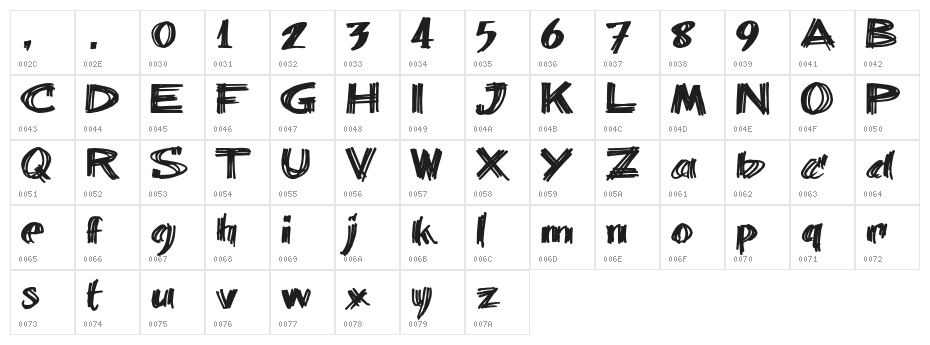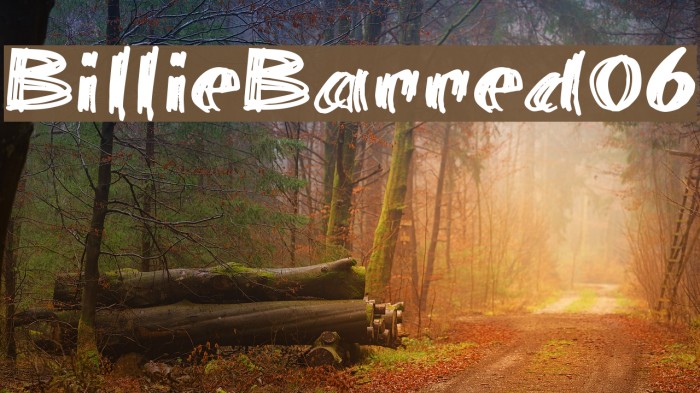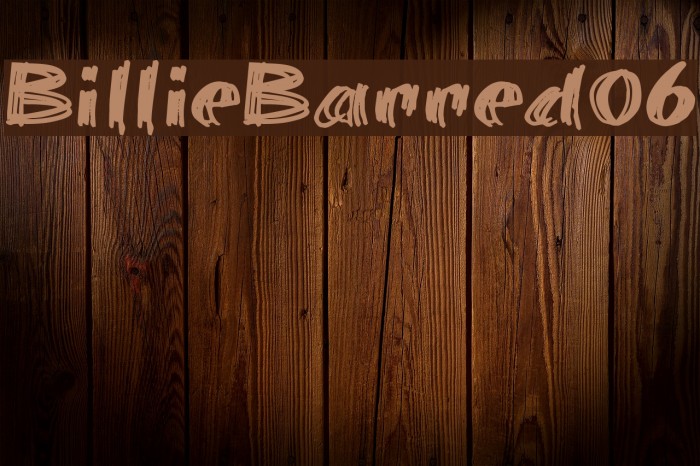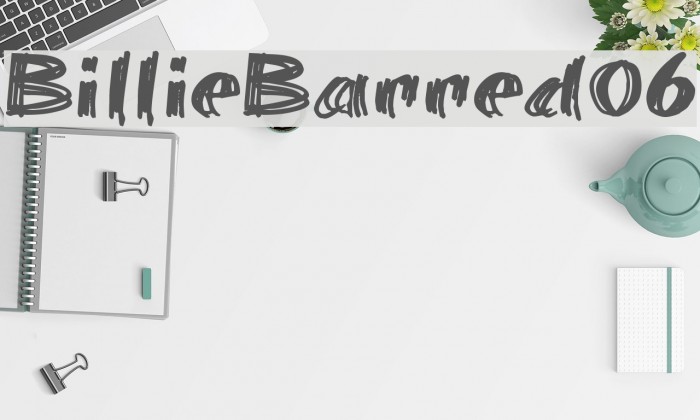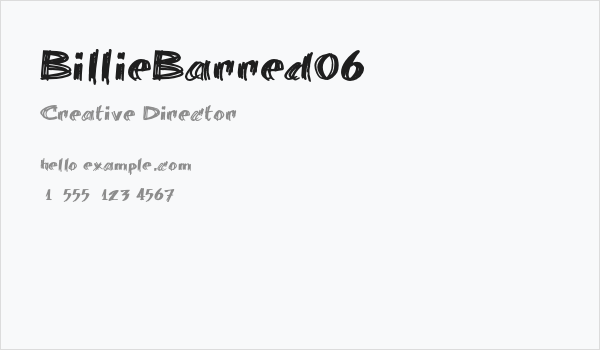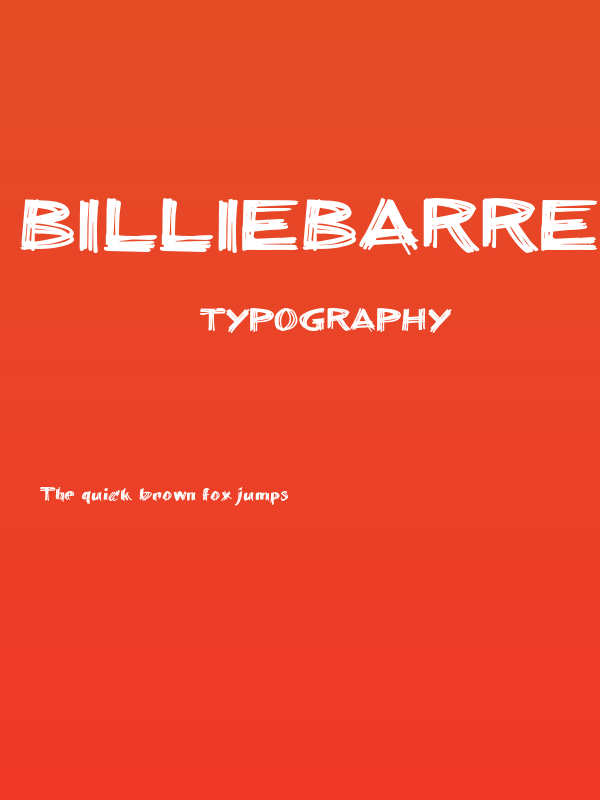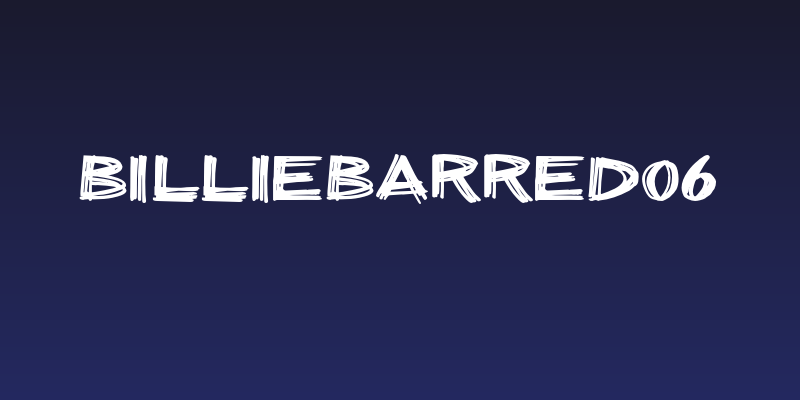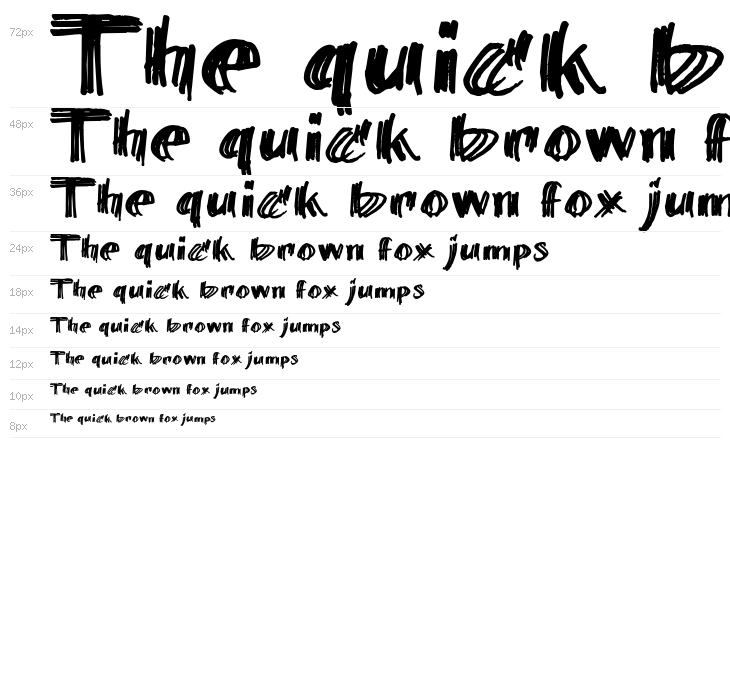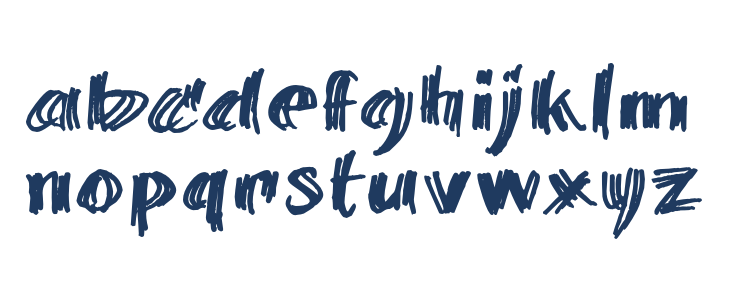
BillieBarred06 Font
BillieBarred06 Description
This font features a bold and expressive style with a hand-drawn appearance. The strokes are thick and uneven, giving it a dynamic and energetic feel. Each character is unique, with varying line thicknesses and angles, creating a sense of movement and spontaneity. The uppercase letters are strong and impactful, while the lowercase letters maintain the same lively character. Numbers and special characters follow the same design principles, ensuring consistency across all glyphs. This font is perfect for projects that require a bold statement or a creative touch.
| Proposed Projects | Ideal for posters, album covers, branding, and any creative projects that require a bold and artistic touch. |